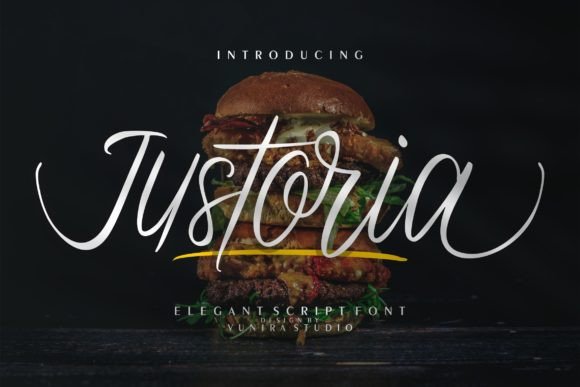
Step into a world of boundless creativity, where your words dance effortlessly on the page, captivating hearts and igniting imaginations. Justoria Font, a breathtaking masterpiece from the visionary foundry Vunira, beckons you to unleash your inner storyteller, transforming the ordinary into the extraordinary.
Immerse yourself in the ethereal beauty of Justoria's meticulously crafted swashes, each stroke a testament to artistic brilliance. Inspired by the fluidity of handwritten scripts, this font dances across the digital canvas with a mesmerizing grace, adding a touch of elegance and refinement to every project it adorns.
With Justoria as your creative companion, you hold the power to weave enchanting tales, evoke profound emotions, and leave an indelible mark on your audience. Its versatility knows no bounds, as it effortlessly adapts to a myriad of design endeavors, from whimsical invitations to captivating logos, from heartfelt letters to soul-stirring social media posts. Let your imagination soar as you craft designs that resonate with authenticity and artistry.
Justoria's PUA encoding unlocks a treasure trove of hidden glyphs and ligatures, allowing you to effortlessly infuse your designs with a touch of magic. Explore a world of infinite possibilities, where every letter, every word, every sentence becomes a work of art, captivating and enchanting all who behold it.
Embrace the power of Justoria, and watch your creative vision come alive. Let your words dance, your stories sing, and your designs flourish, as this exceptional font elevates your projects to new heights of brilliance.